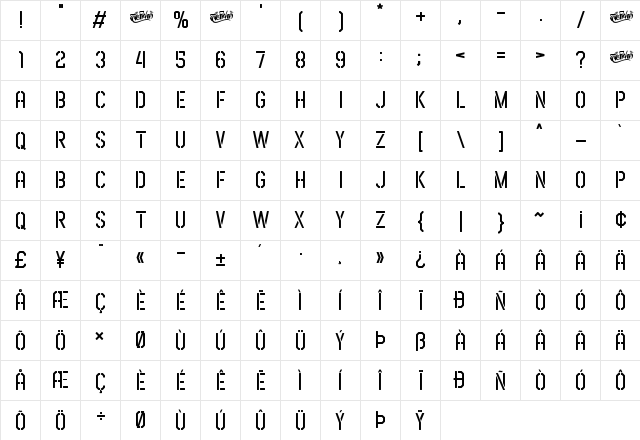
Airborne 86 Stencil Regular
Design Context for Airborne 86 Stencil Typeface
Airborne 86 Stencil borrows the utilitarian aesthetic of stencil lettering, with its characteristic cutaways and no-frills construction lending an industrial edge.
A strong choice for packaging that needs edge, warehouse aesthetics, and rough-and-ready visual identities.
Pro Tip: Use Airborne 86 Stencil at large sizes on packaging, posters, or apparel where the stencil cutaways read clearly. Avoid small sizes where those gaps become visual noise.